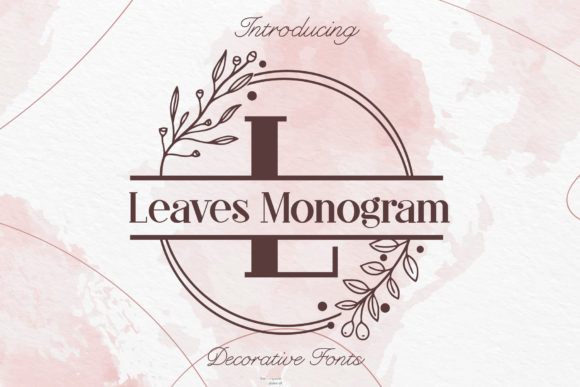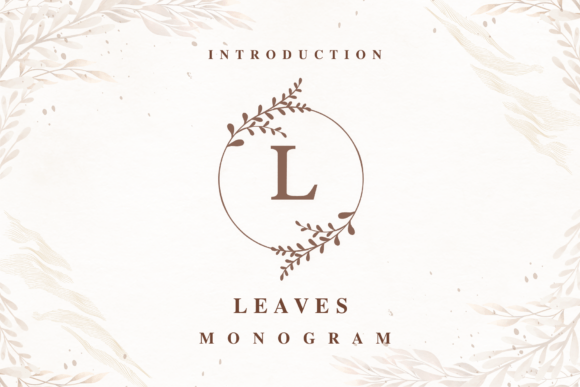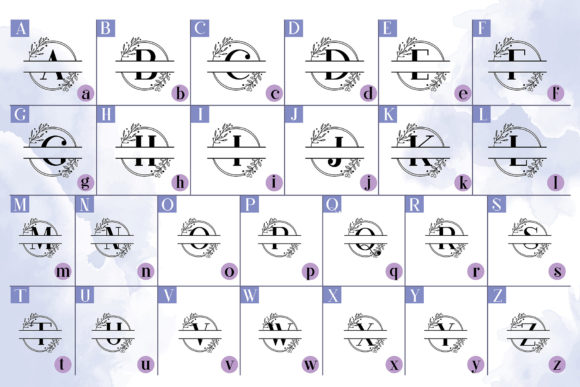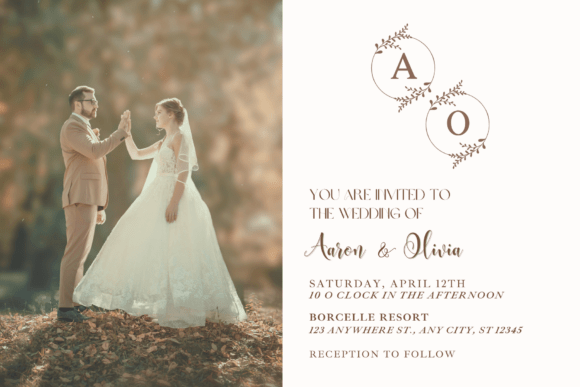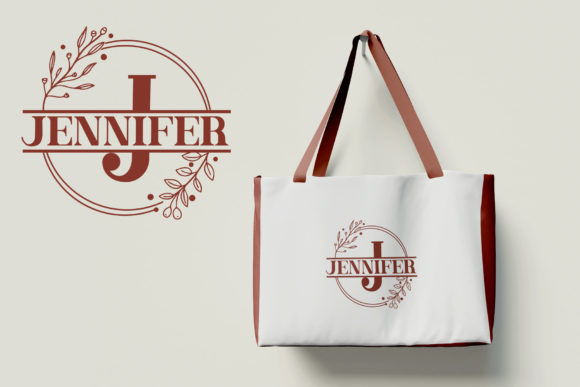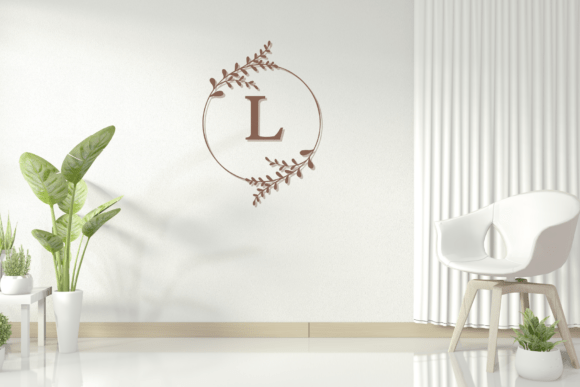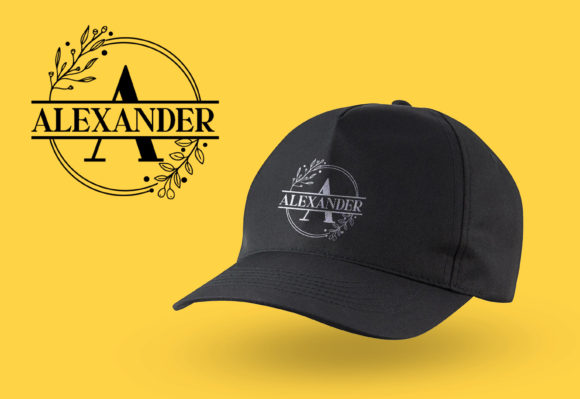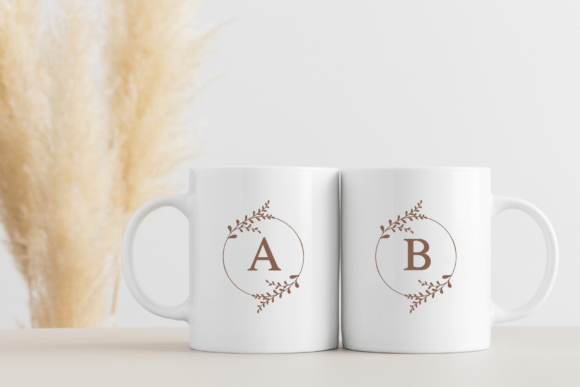
Leaves Monogram Font
About the Leaves Monogram Font
Presenting Leaves Monogram Font, a unique and stylish typeface that will make your work stand out. Leaves Monogram is an elegant font designed for special occasions. It features decorative letters inside a beautiful leaves round frame, making it perfect for invitations and wedding cards. This font adds a touch of charm and sophistication to any celebration!
Its elegant, decorative style makes Leaves Monogram ideal for projects requiring a touch of vintage charm. Consider using it for logos, short headlines, or branding elements for businesses focused on events, stationery, or luxury goods. It is less suitable for body text or extended reading due to its ornate nature and limited character set.
Pairing Leaves Monogram with a clean sans-serif font like Montserrat or a classic serif like Garamond provides a pleasing contrast. The sans-serif will offer readability for supporting text, while the serif adds a timeless sophistication that complements the font’s personality. For a more modern feel, a geometric sans-serif like Futura could also be considered.
The overall personality of Leaves Monogram is refined and celebratory, lending itself to projects that evoke feelings of sophistication and special occasions. Avoid using it for contexts requiring a modern, minimalist, or playful aesthetic.
Leaves Monogram Font Usage Examples
Leaves Monogram Font Example